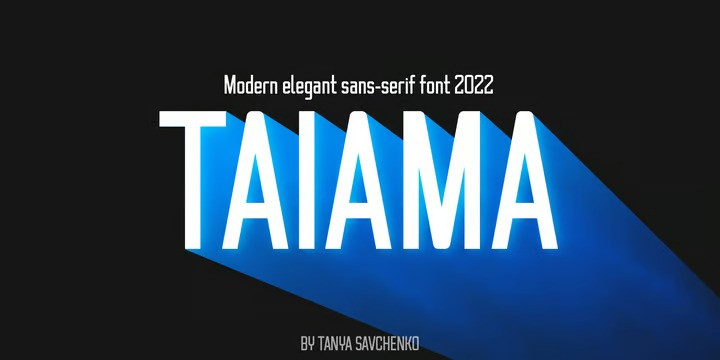
Taiama Sans Serif Font is a sans serif font designed by Tanya Savchenko in 2022. It can easily be matched to an incredibly large set of projects, so add it to your creative ideas and notice how it makes them stand out! This font is perfect for quotes, shirt designs, websites, branding, children’s designs, svg designs, blogs, logos, invitations and more!